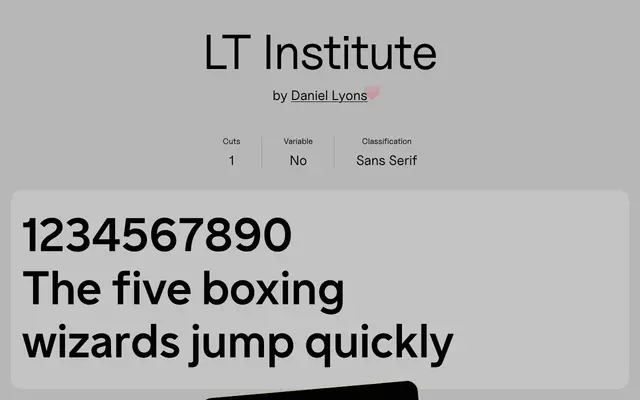
LT Institute
A single-cut sans-serif by Daniel Lyons, released under the SIL Open Font License for free commercial and personal use.
LT Institute is a sans-serif typeface by Daniel Lyons available in a single cut with no variable axis. Released under the SIL Open Font License 1.1, it can be used freely in commercial and personal projects, with redistribution and modification permitted under the licence terms. The minimal family scope suggests a straightforward utility face rather than a developed type system.
Classified as Sans Serif by the foundry; the name and single-cut release suggest a straightforward grotesque or neo-grotesque design without further subfamily variation.